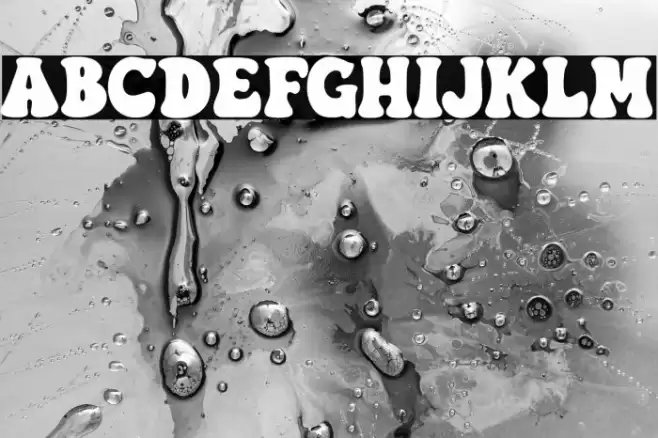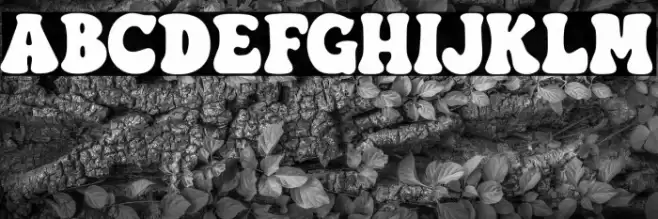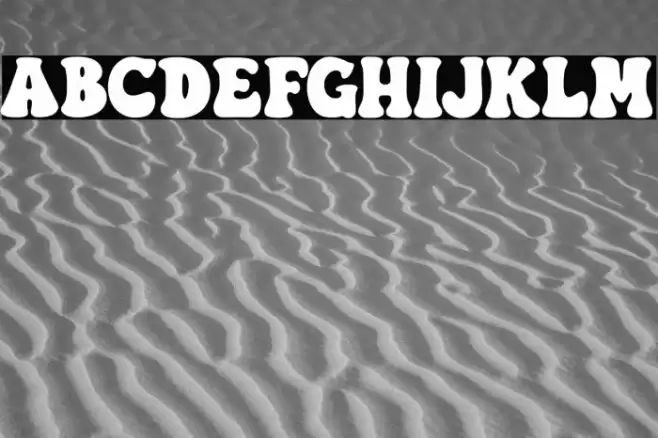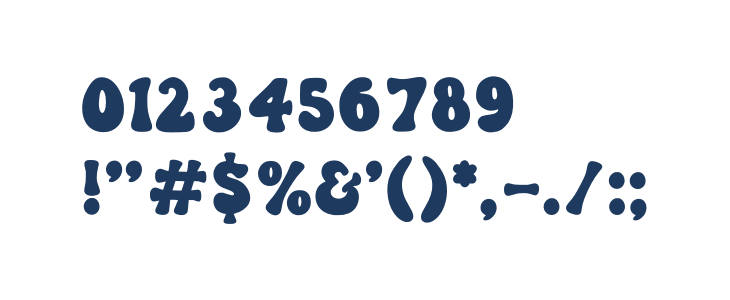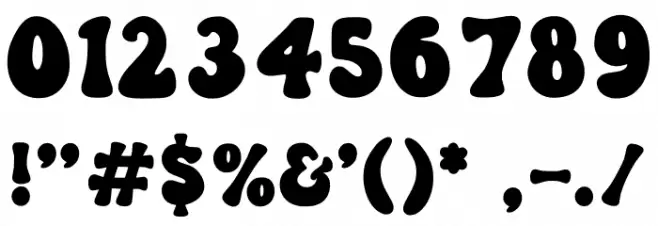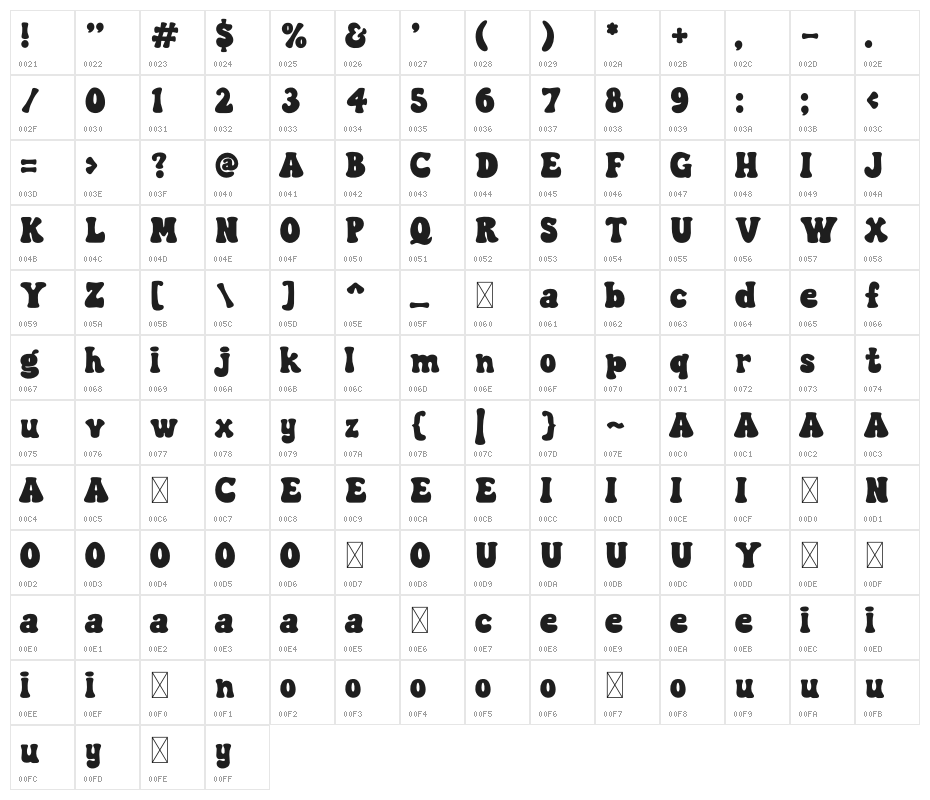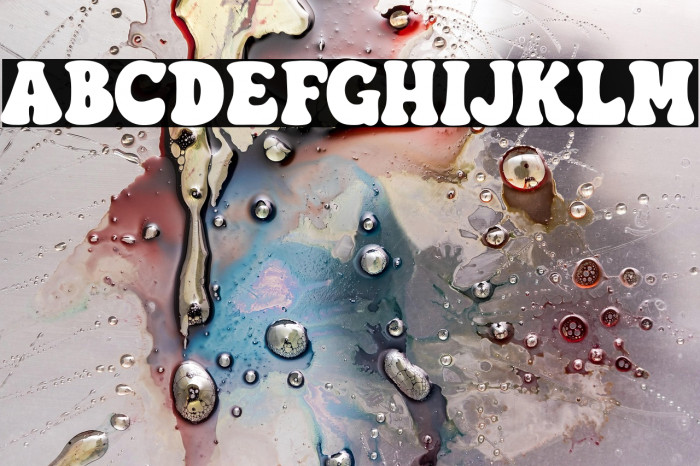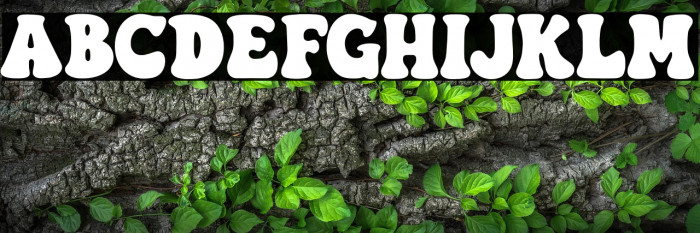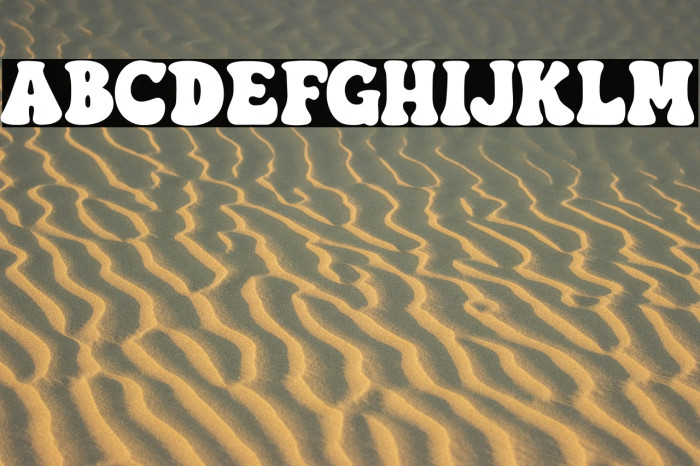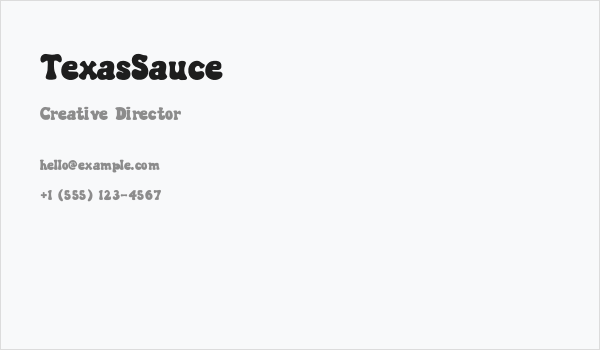
TexasSauce Font
TexasSauce Description
This font features a bold and playful design with thick, rounded strokes that give it a bubbly and friendly appearance. The characters are well-defined with a consistent weight throughout, creating a cohesive look. The uppercase and lowercase letters maintain a uniform style, while the numerals and special characters complement the overall design. Its whimsical nature makes it suitable for creative and informal projects, adding a touch of fun and personality to any text.
A bold, playful font with thick, rounded strokes and a whimsical style from Uncategorized fonts.
- Font: TexasSauce
- Proposed Projects: Ideal for children's books, playful branding, party invitations, and creative posters.
- Overall Style: Playful